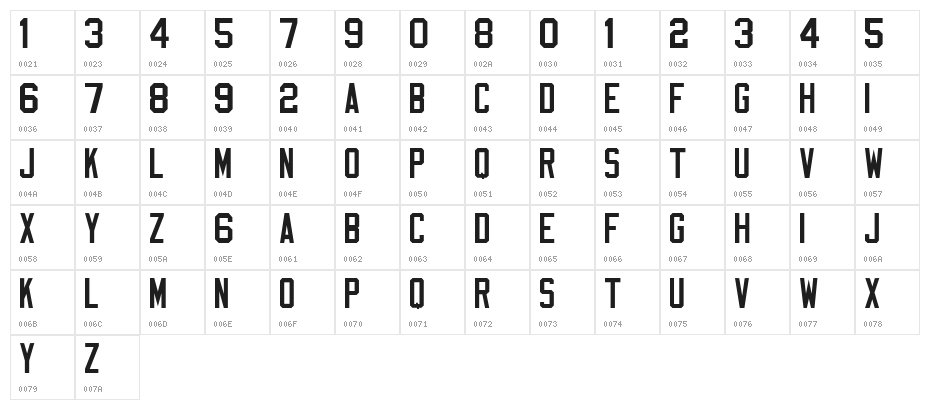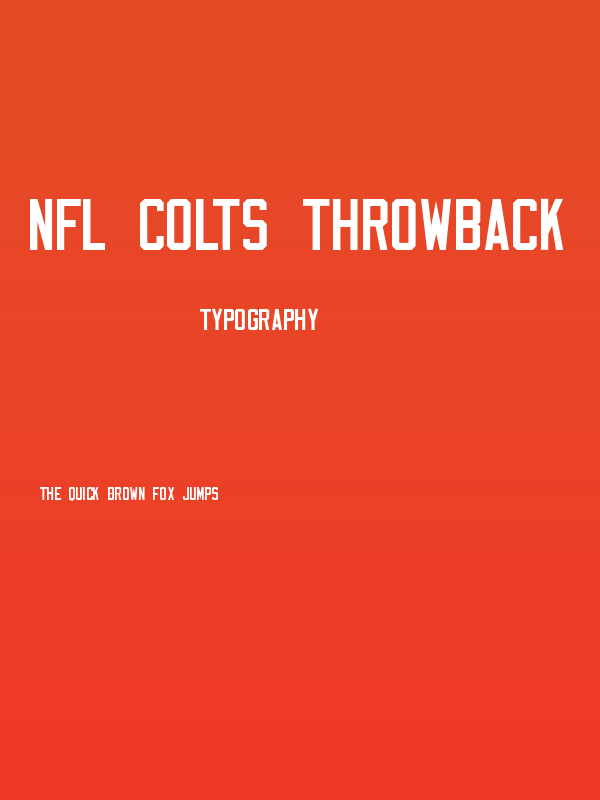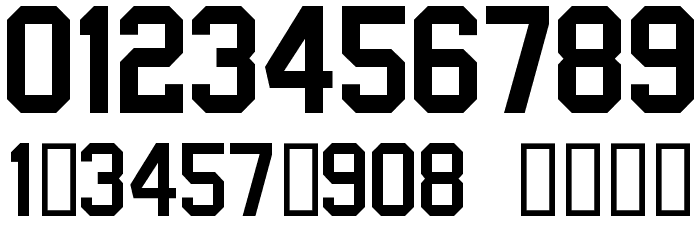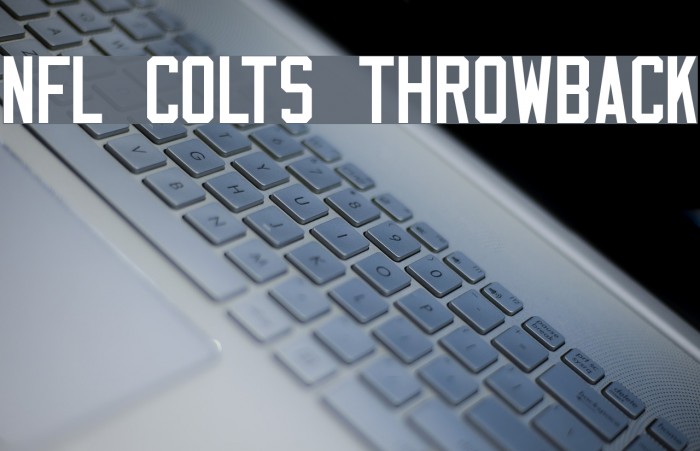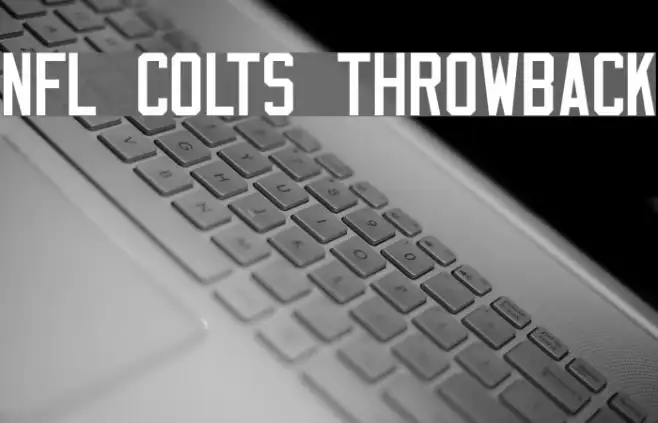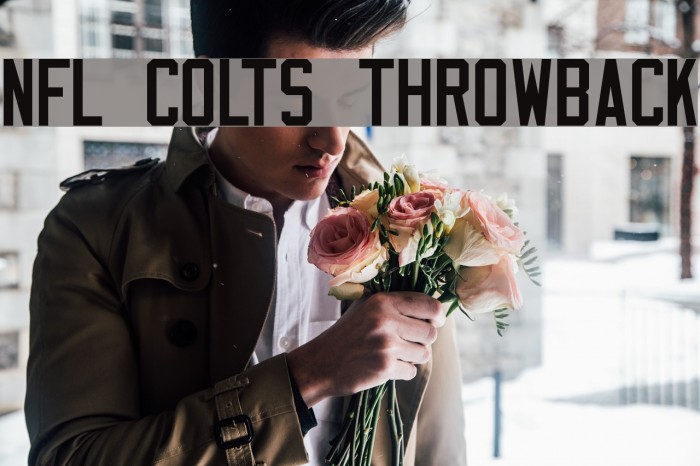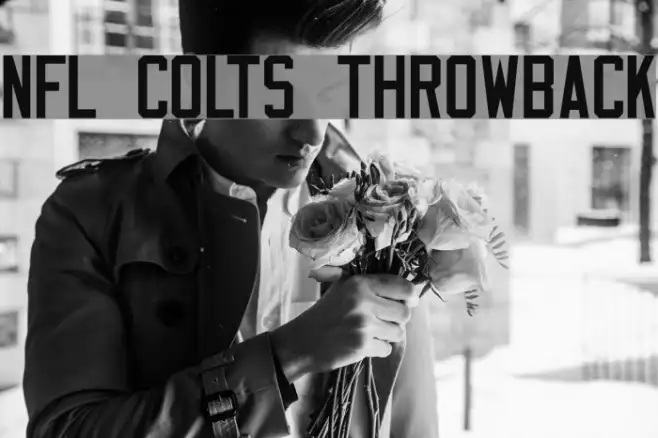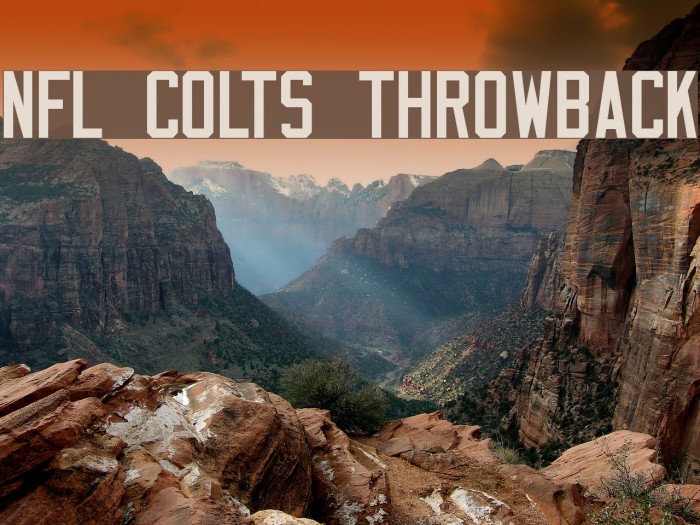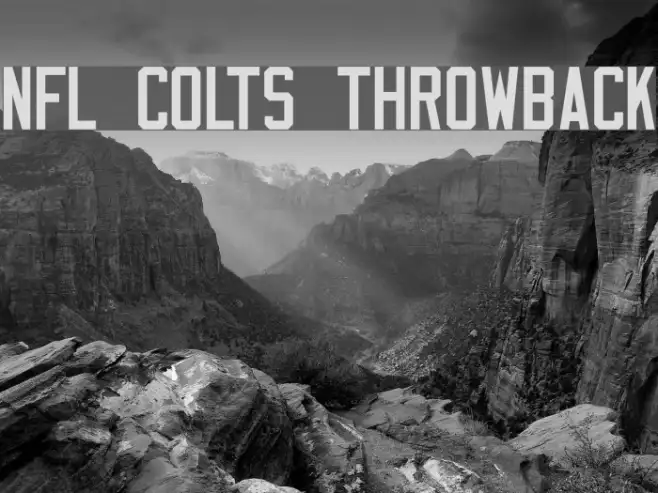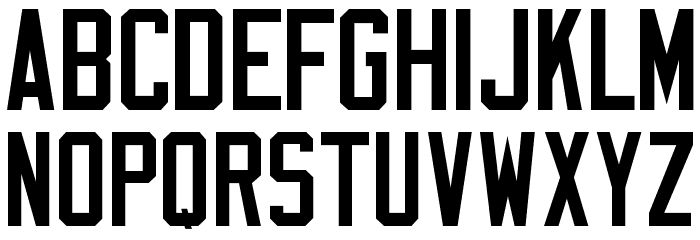
NFL Colts Throwback Font
NFL Colts Throwback Description
This font features a bold and robust design with a strong geometric structure. The characters are all uppercase, with a uniform height and width, creating a sense of balance and stability. The edges are sharp and angular, giving it a modern and sporty feel. The numbers are equally bold, maintaining the same geometric style, which enhances readability and impact. This font is ideal for projects that require a strong visual presence, such as sports branding or team merchandise. Its clean lines and solid form make it versatile for various design applications.